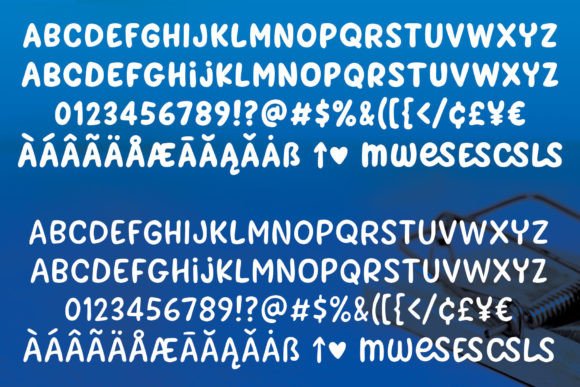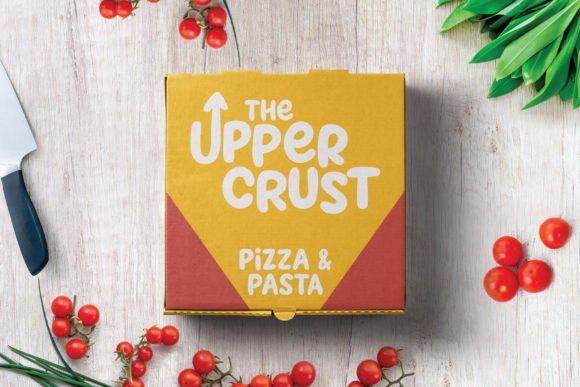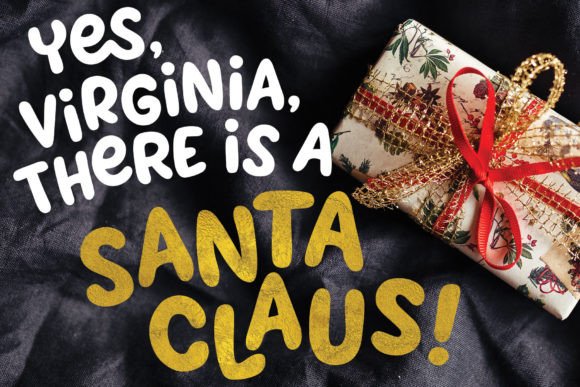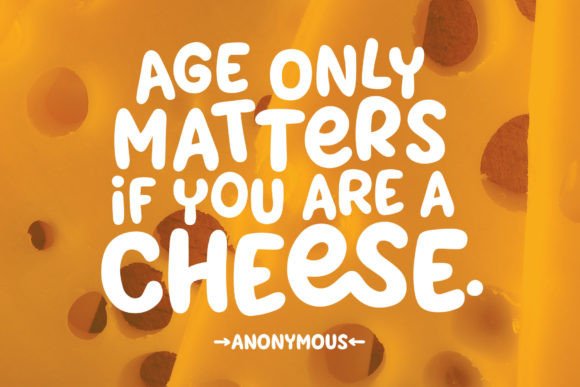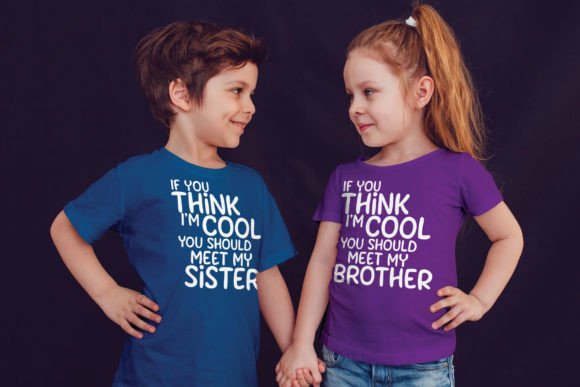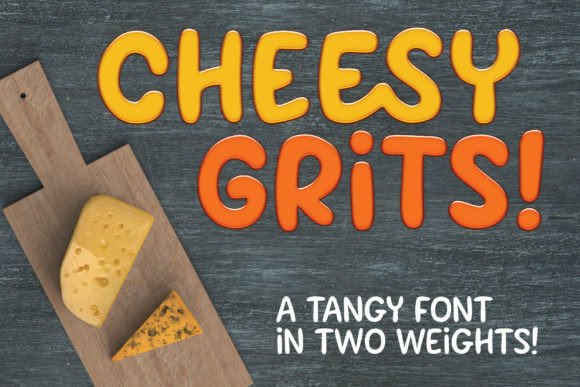
Introducing Cheesy Grits Font: The Perfect Blend of Fun and Versatility
I'd never had grits until I moved to Florida around 10 years ago. Almost everywhere I found them, they were loaded up with cheese. Which … I'm never going to complain about added cheese, folks. This delightful experience inspired the creation of Cheesy Grits Font, a fun, fat, blobby font that's perfect for logos, branding, packaging, crafts, and tons of other projects.
The Cheesy Grits Story
Cheesy Grits Font is a unique typeface that captures the playful spirit of its namesake dish. With its bold, rounded letters, this font is sure to add a touch of whimsy to any design project. The font comes with two uppercase sets for variety, plus a few additional double-letter ligatures and alternates, giving you plenty of options to work with.
Variety and Options
One of the standout features of Cheesy Grits Font is its versatility. The font includes two uppercase sets, allowing you to mix and match letters to create a unique look. Additionally, the font features double-letter ligatures and alternates, which can be used to add an extra touch of personality to your designs.
But that's not all – I also created a second, "slim" version of Cheesy Grits Font, which offers a thinner stroke width while maintaining the same quirky and fun feel. This gives you options for designs where a more subtle look is desired.
Cheesy Grits Font is perfect for designers and crafters looking to add a touch of fun and personality to their projects. Whether you're creating logos, branding materials, packaging, or crafts, this font is sure to inspire. Its bold, playful letters are sure to grab attention and add a touch of whimsy to any design.
Tips for Using Cheesy Grits Font
Here are a few tips for getting the most out of Cheesy Grits Font:
• Use it for headlines and titles: Cheesy Grits Font is perfect for adding a touch of personality to headlines and titles.
• Experiment with colors: The bold, rounded letters of Cheesy Grits Font look great in a variety of colors, so don't be afraid to experiment.
• Pair it with other fonts: Cheesy Grits Font pairs well with a variety of other fonts, so try combining it with other typefaces to create a unique look.
In conclusion, Cheesy Grits Font is a fun, versatile typeface that's perfect for designers and crafters looking to add a touch of personality to their projects. With its bold, rounded letters, two uppercase sets, and advanced OpenType features, this font is sure to inspire. Whether you're creating logos, branding materials, packaging, or crafts, Cheesy Grits Font is the perfect choice.